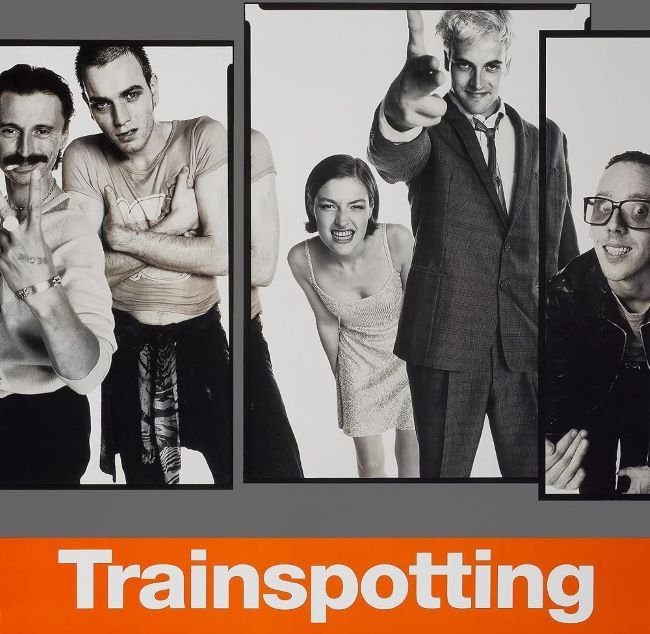
Trainspotting font makes its typographic statement the same way Danny Boyle’s 1996 film makes its cinematic one — by choosing a clean, modern sans-serif that should feel neutral and then deploying it at such a pace and with such energy that neutral is the last thing it feels. The title lettering is a bold, contemporary grotesque in the Inter and modern humanist sans-serif tradition, its crisp geometry and strong vertical rhythm communicating the speed, clarity, and absolute self-confidence of a film that knows exactly what it’s doing at every moment, even when its characters demonstrably do not. The freely available Inter is the closest open-source match — precise, adaptable, and possessed of an urgent legibility that suits the film perfectly.